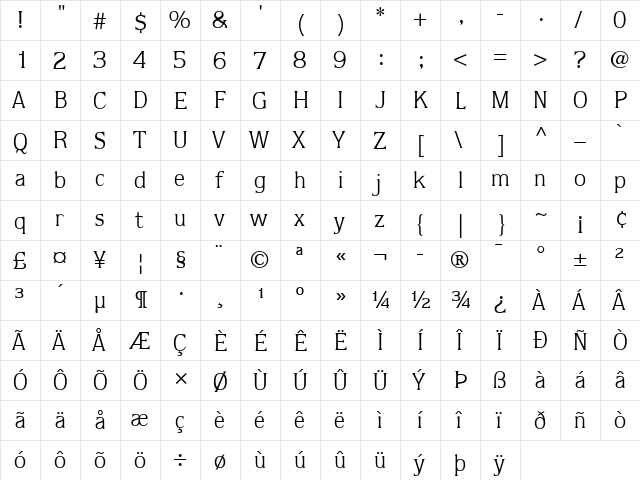
Quorum LT Book Regular
Design Context for Quorum LT Book Typeface
Quorum LT Book is a composed and adaptable typeface that performs quietly and consistently across a wide range of design contexts. Its slender proportions lend an understated elegance to any composition.